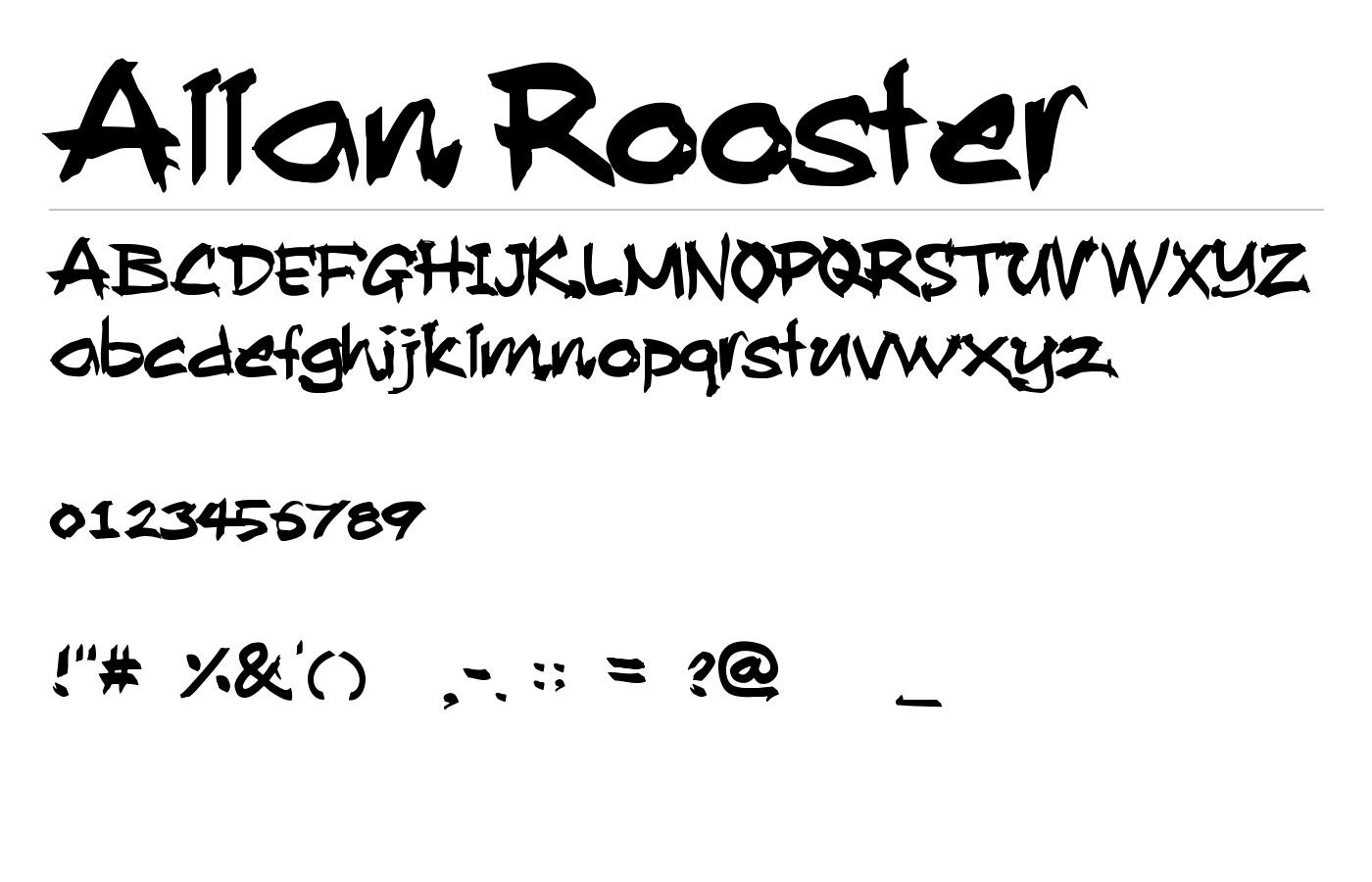
Allan Rooster is a bold, playful handwritten font with a rough, brush-like texture that adds a dynamic, energetic feel to any design. Its irregular strokes and quirky letterforms make it perfect for creative projects, posters, and branding that seek a casual, lively vibe. This font works especially well where a unique, eye-catching display is needed to convey personality and spontaneity.
Allan Rooster Font
About Allan Rooster Font
| Font family | Allan Rooster Font |
| Designer | RODI DE ASIS |